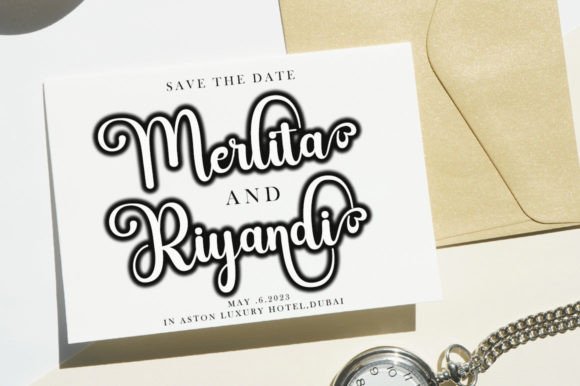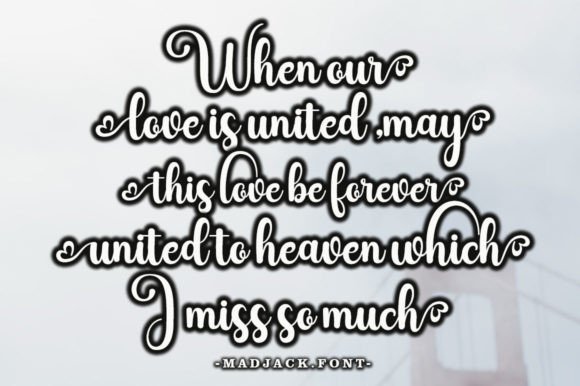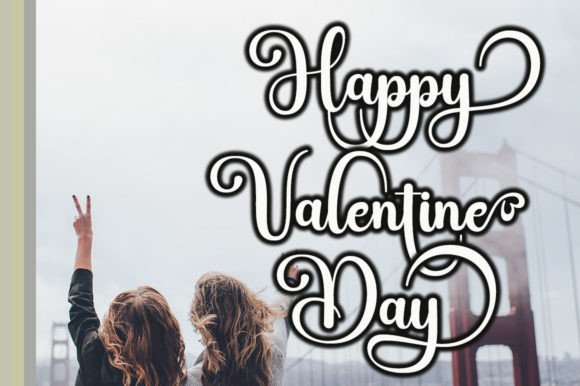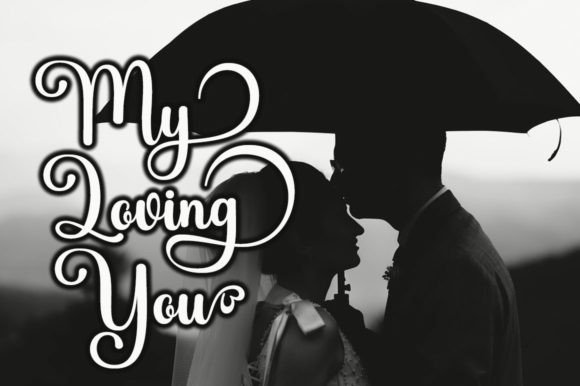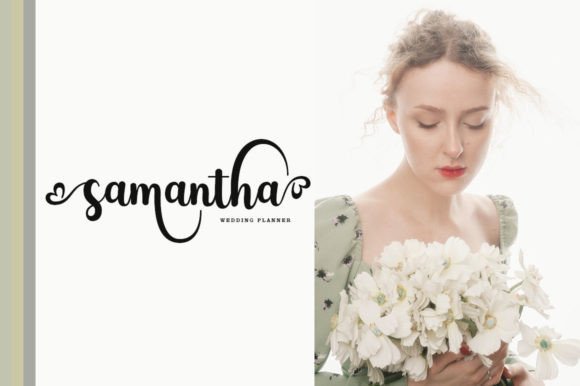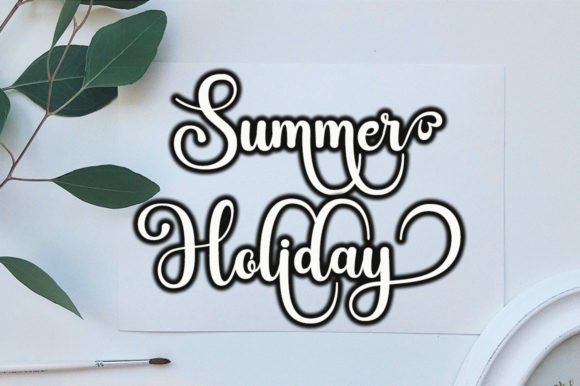
Introducing Carley Butterfly Font: A Timeless Handwritten Beauty
Are you a designer or crafter looking for a unique and elegant font to elevate your creative projects? Look no further than the Carley Butterfly Font! This stunning handwritten font is perfect for creating attractive logos, branding, and quotes that will leave a lasting impression.
The Beauty of Carley Butterfly Font
Carley Butterfly Font is a beautiful, timeless handwritten font that exudes elegance and sophistication. Its flowing script and delicate lines make it perfect for a variety of design projects, from logos and branding to quotes and social media graphics. The font’s classic look and feel will transport you to a world of beauty and wonder, making it an ideal choice for designers and crafters who want to add a touch of whimsy to their work.
One of the best features of Carley Butterfly Font is that it is PUA (Private Use Area) coded, which means you can access all the glyphs and swashes easily. This makes it simple to customize your text and add unique touches to your designs. With PUA coding, you can unlock the full potential of the font and take your creative projects to the next level.
Carley Butterfly Font is a versatile font that is perfect for designers and crafters alike. Whether you’re creating logos, branding, quotes, or social media graphics, this font is sure to impress. Its elegant look and feel make it ideal for a variety of projects, including:
- Logos and branding: Create a lasting impression with a custom logo or branding that showcases your unique style.
- Quotes and social media graphics: Add a touch of elegance to your quotes and social media graphics with this beautiful handwritten font.
- Stationery and paper crafts: Use Carley Butterfly Font to create beautiful stationery, cards, and paper crafts that will delight your friends and family.
Why Choose Carley Butterfly Font?
So why choose Carley Butterfly Font over other fonts? Here are just a few reasons:
- Unique and elegant look: Carley Butterfly Font has a unique and elegant look that will set your designs apart from the crowd.
- PUA coded for easy access: With PUA coding, you can access all the glyphs and swashes easily, making it simple to customize your text.
- Versatile and flexible: Carley Butterfly Font is perfect for a variety of design projects, from logos and branding to quotes and social media graphics.
- Timeless and classic: This font has a timeless and classic look that will never go out of style.
Tips for Using Carley Butterfly Font
Here are a few tips for using Carley Butterfly Font in your design projects:
- Experiment with different sizes and colors: Try out different sizes and colors to see what works best for your design.
- Mix and match with other fonts: Combine Carley Butterfly Font with other fonts to create a unique and interesting look.
- Use swashes and glyphs: Take advantage of the PUA coding and use swashes and glyphs to add a touch of elegance to your text.
In conclusion, Carley Butterfly Font is a beautiful, timeless handwritten font that is perfect for designers and crafters looking to add a touch of elegance to their creative projects. With its PUA coding, unique and elegant look, and versatility, this font is sure to become a favorite in your design arsenal. So why wait? Download Carley Butterfly Font today and start creating stunning designs that will leave a lasting impression!